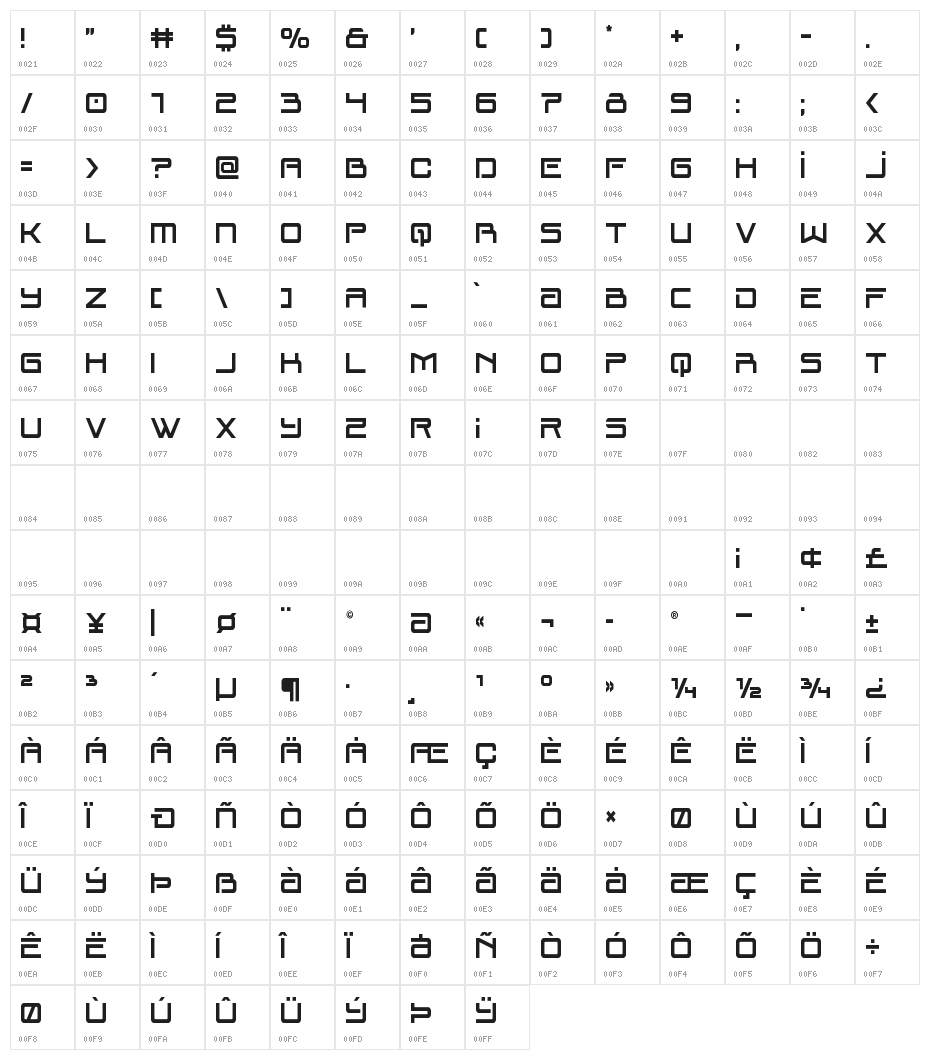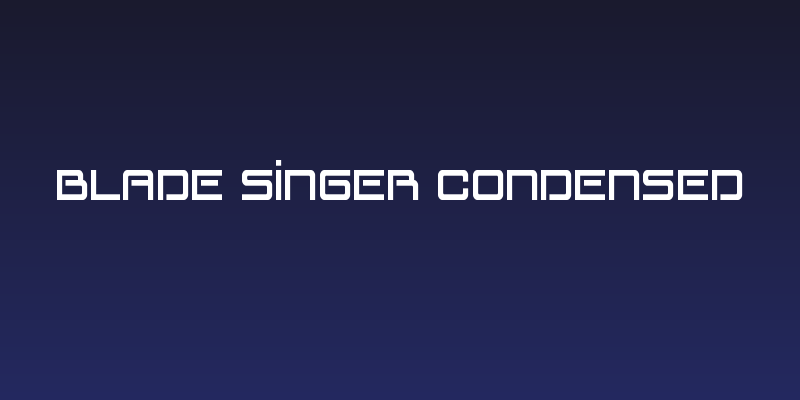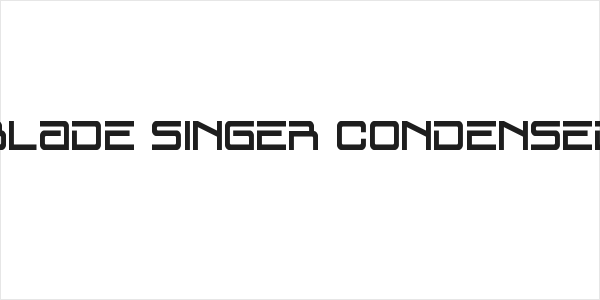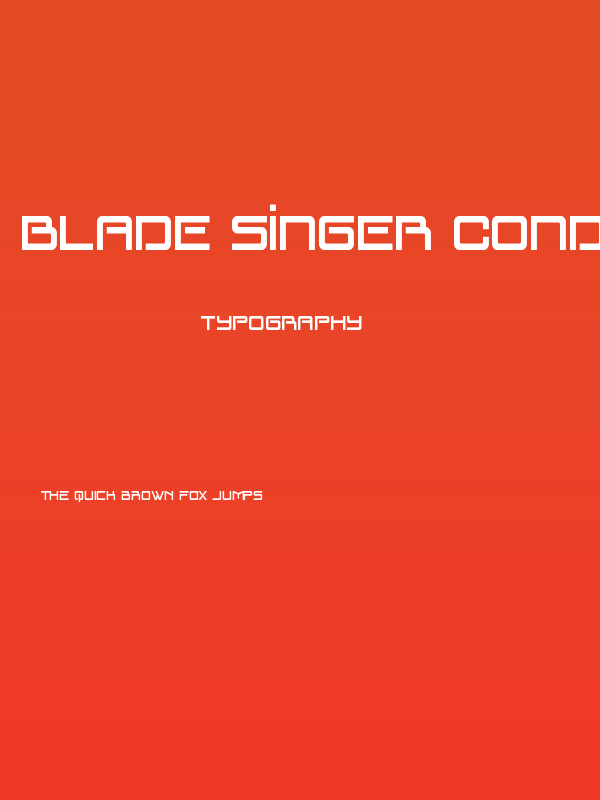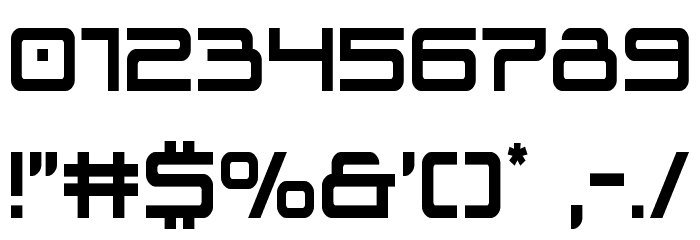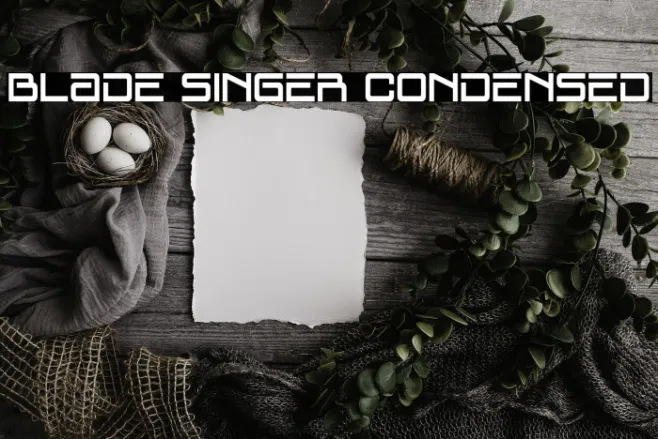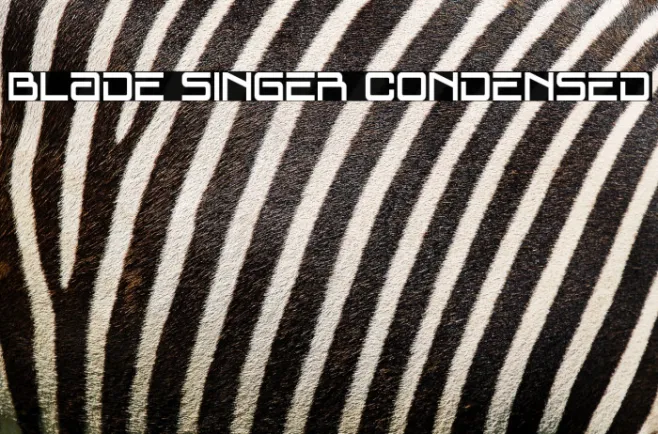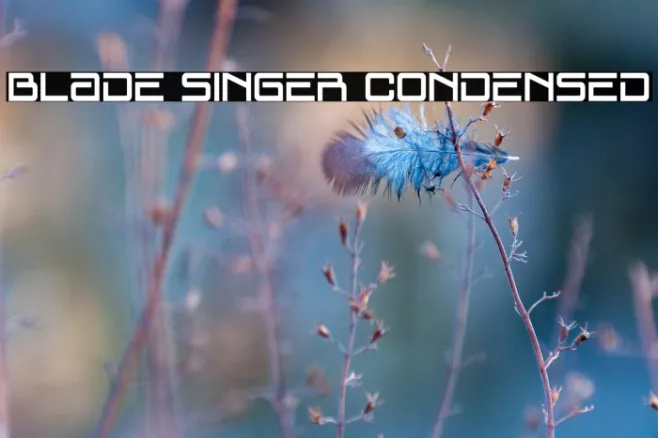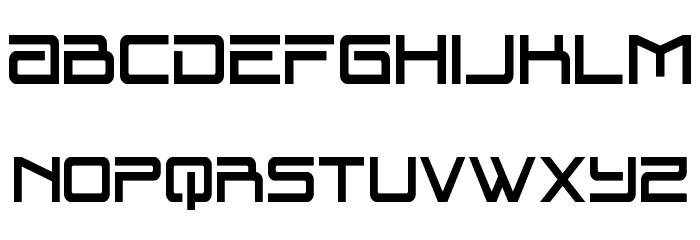
Blade Singer Condensed Font
Blade Singer Condensed Description
This font features a futuristic and geometric design with a condensed structure. The characters are bold and have a squared-off appearance, giving them a modern and tech-inspired look. The uppercase and lowercase letters maintain a consistent style, with clean lines and sharp angles. The numerals and special characters are designed to match the overall aesthetic, providing a cohesive appearance across all glyphs. The font's unique style makes it suitable for projects that require a modern and edgy feel.